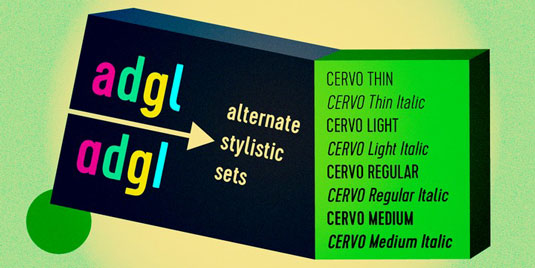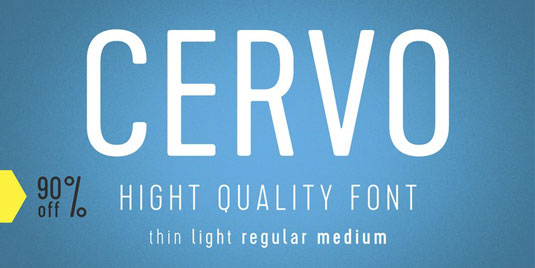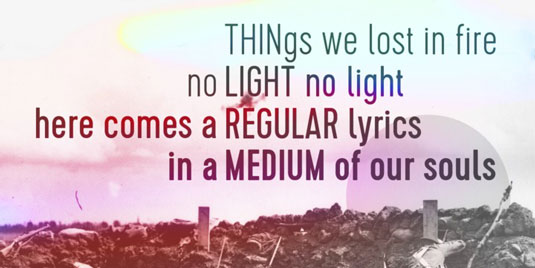
Font of the day: Cervo
Cervo by Blazej Ostoja Lniski
Today's font of choice is Cervo by Polish artist Błażej Ostoja Lniski. The design was inspired by a You And Me Monthly published by National Magazines Publisher RSW Prasa that appeared from May 1960 till December 1973 in Poland.